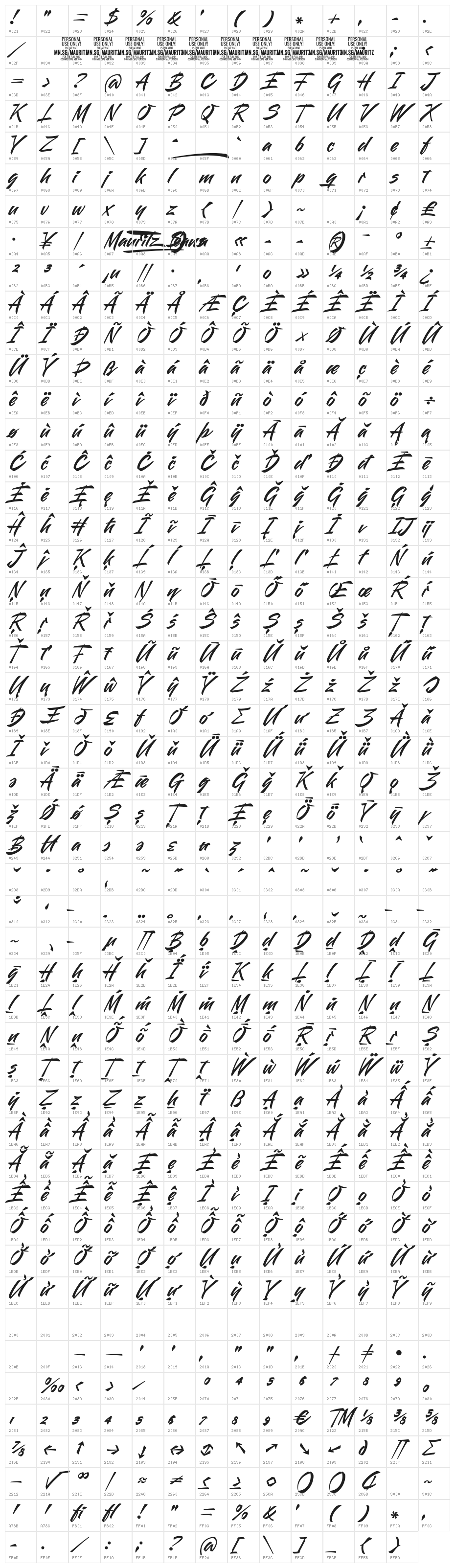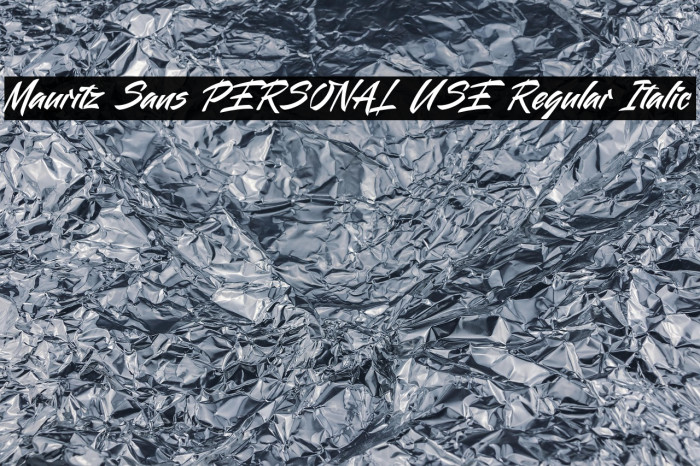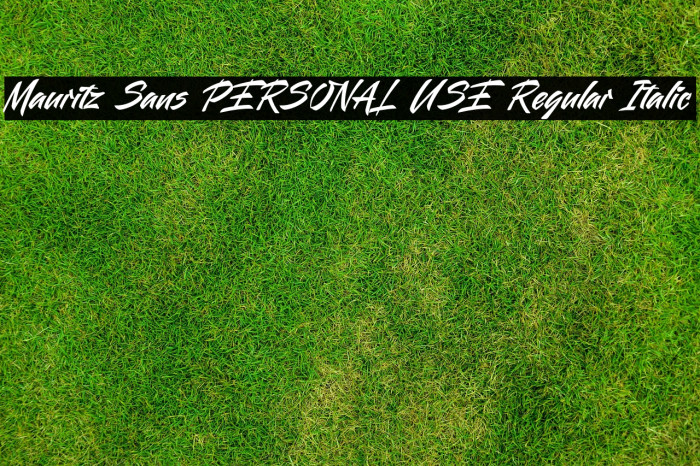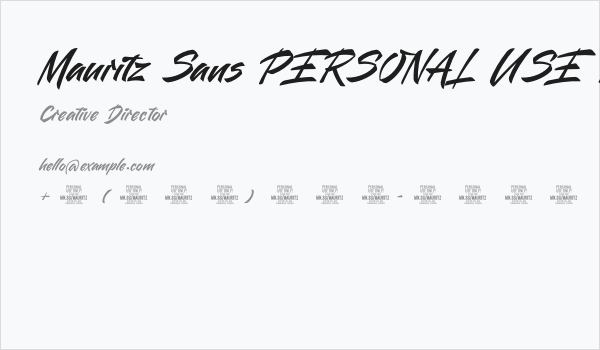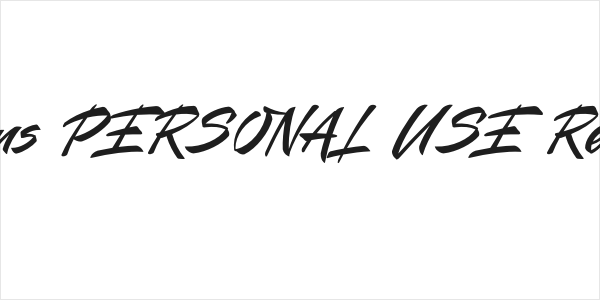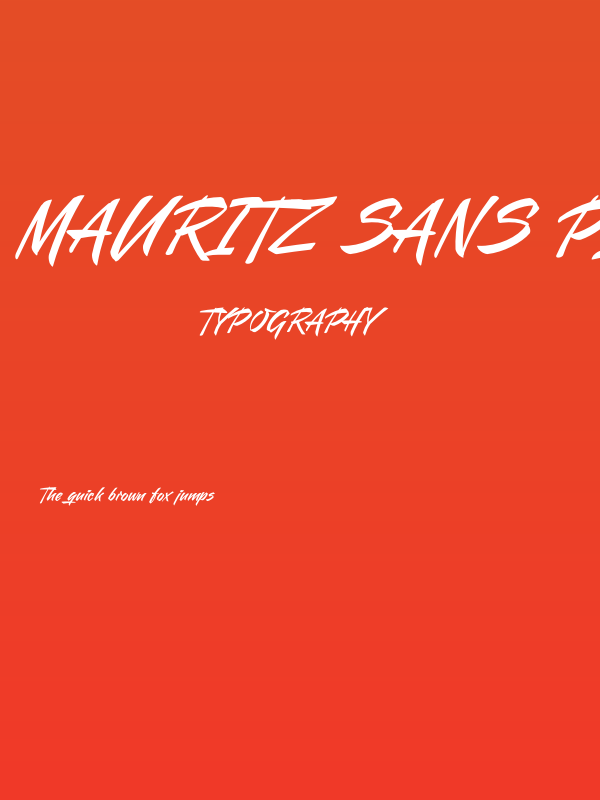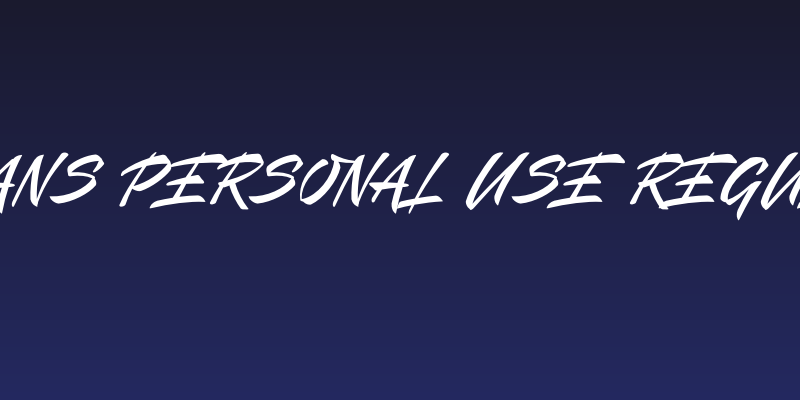
Mauritz Sans PERSONAL USE Regular Italic Font
Mauritz Sans PERSONAL USE Regular Italic Description
This font features a dynamic and energetic style, characterized by its bold and italicized script. The letters are connected in a fluid manner, giving it a handwritten appearance. The uppercase letters are tall and slightly slanted, while the lowercase letters maintain a consistent flow with a slight slant, enhancing the overall cursive feel. The numerals and special characters are designed to match the lively and expressive nature of the alphabet, making it suitable for creative and artistic projects. The strokes are thick, providing a strong presence and high contrast, which adds to its legibility and visual impact.